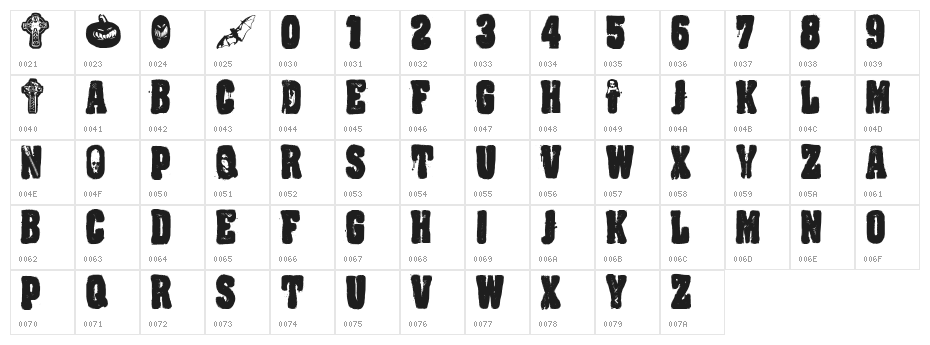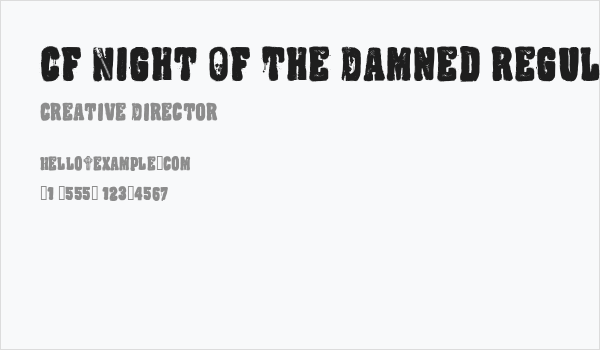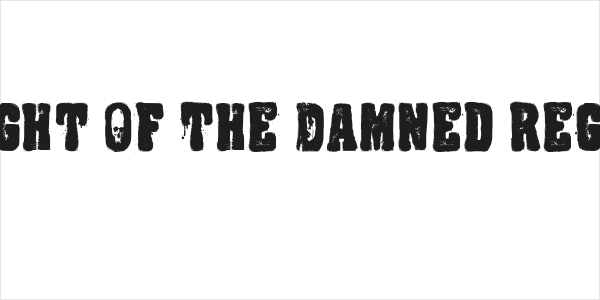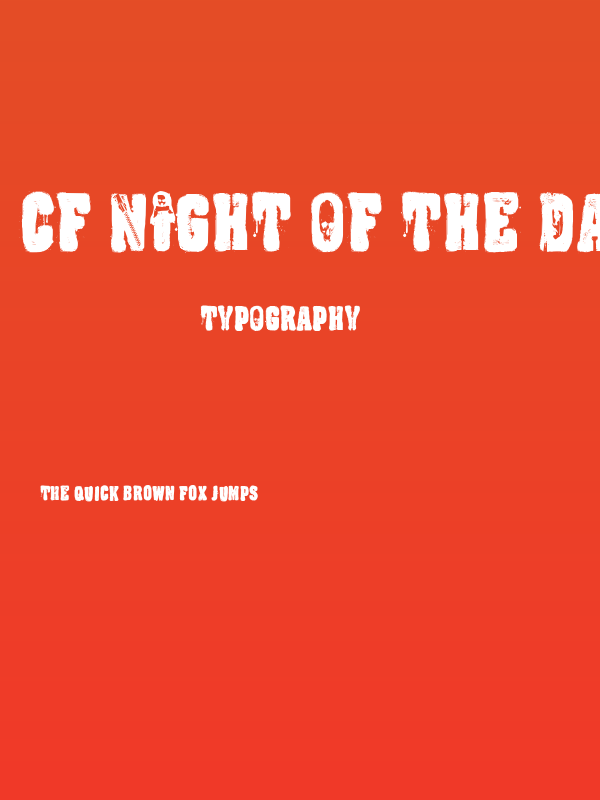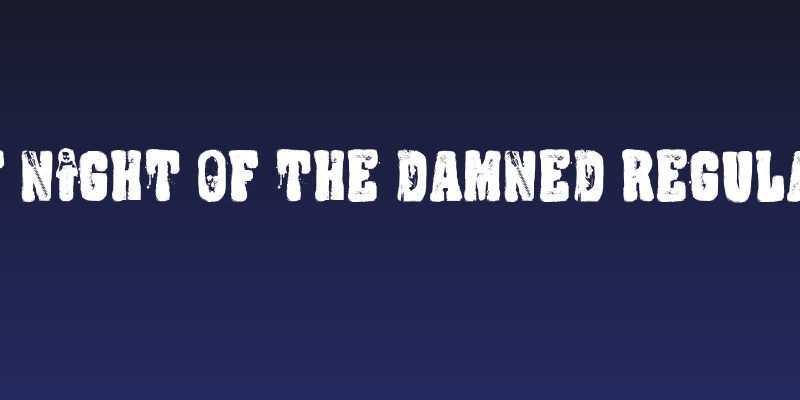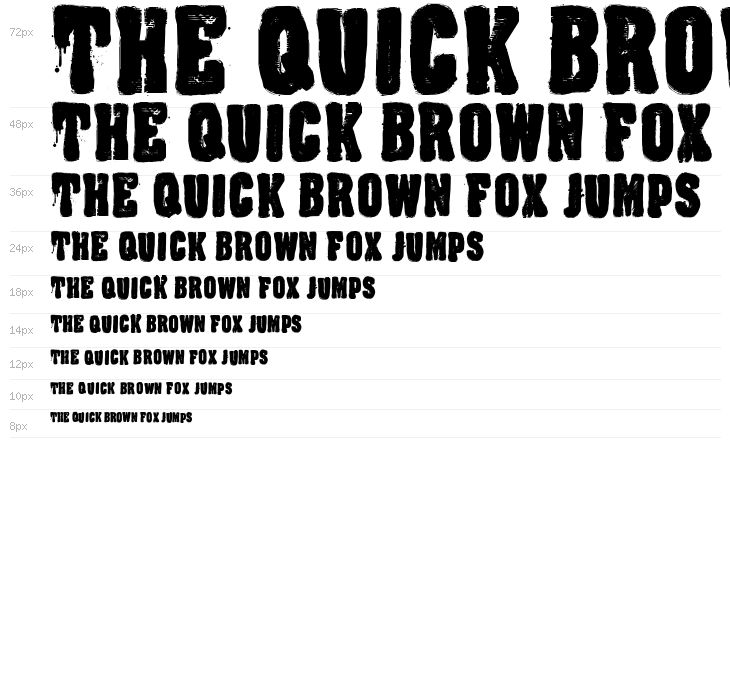
CF Night Of The Damned Regular Font
CF Night Of The Damned Regular Description
This font features a bold and distressed style, perfect for creating a spooky or eerie atmosphere. The characters are heavily textured, giving them a worn and rugged appearance. The uppercase and lowercase letters maintain a consistent weight, adding to the boldness of the design. The numbers and special characters follow the same distressed theme, making them ideal for thematic projects. The overall look is reminiscent of horror or Halloween aesthetics, with a playful yet dark twist.
| Proposed Projects | Perfect for Halloween posters, horror movie titles, themed party invitations, and haunted house signage. |